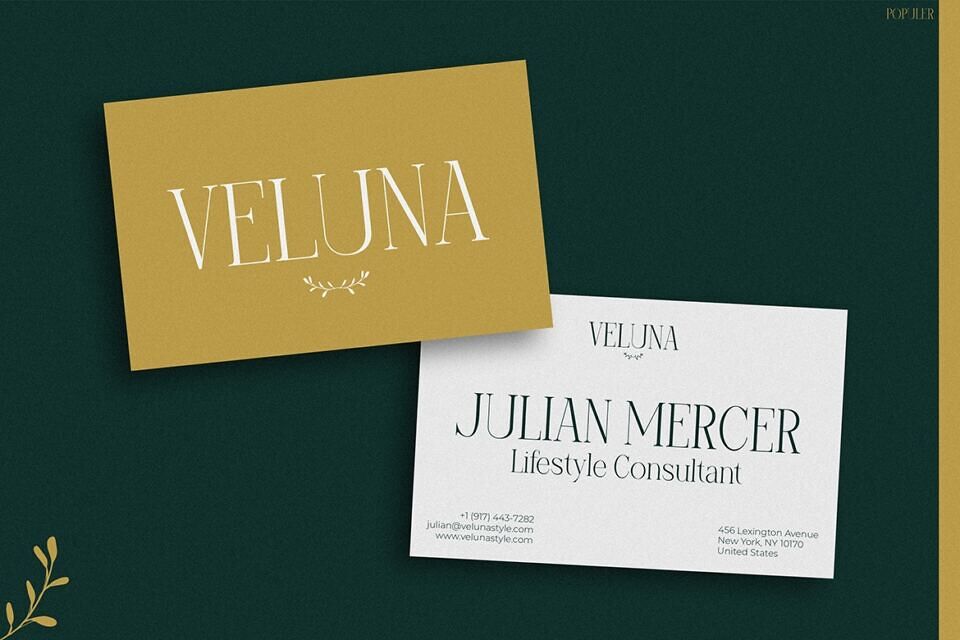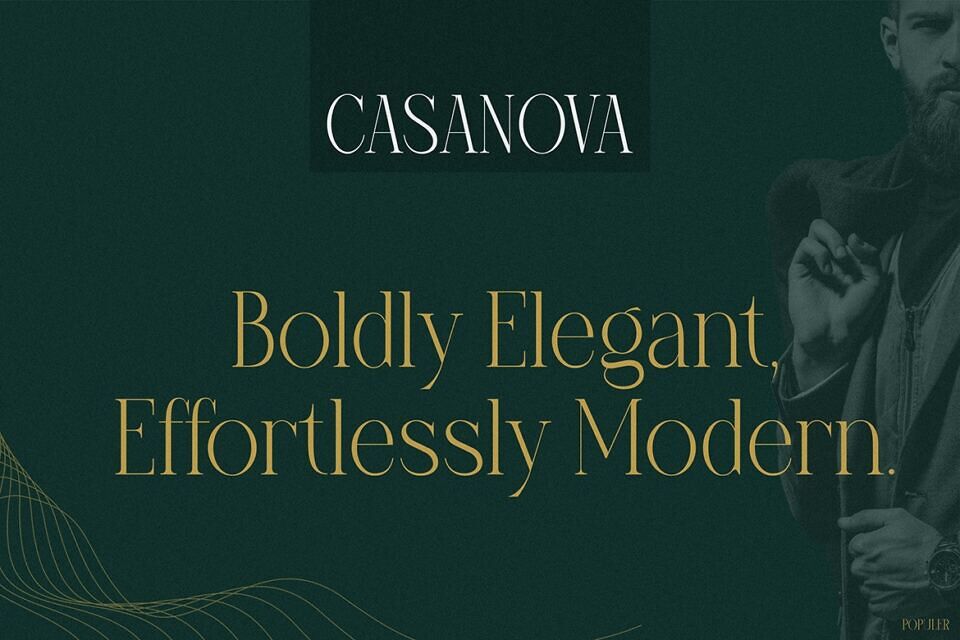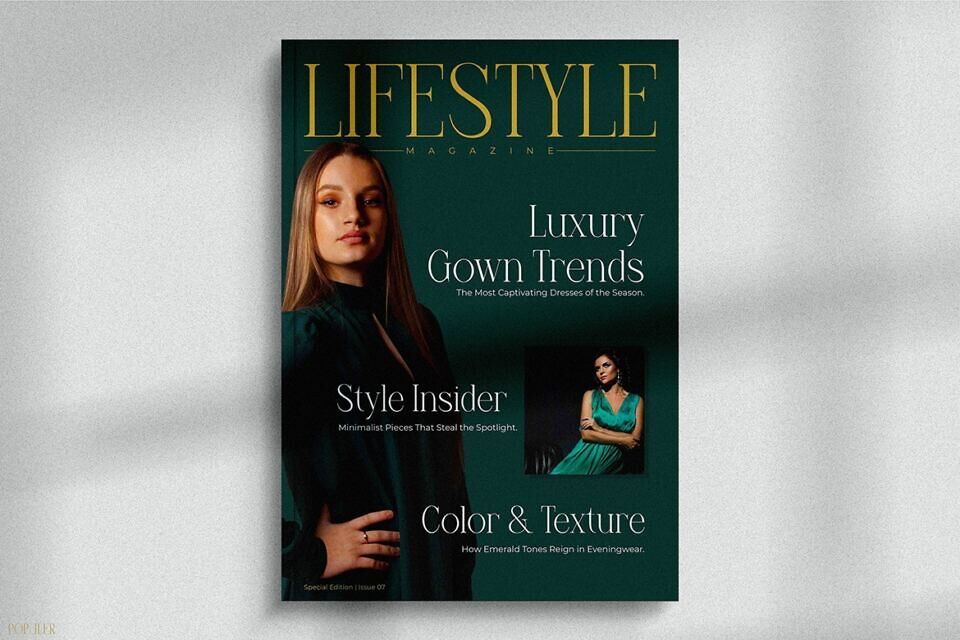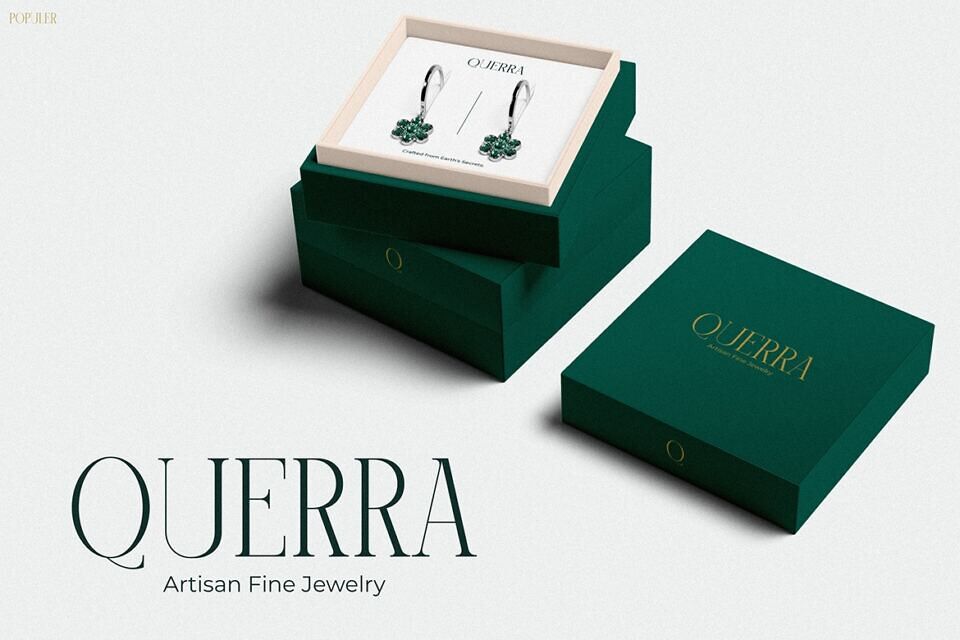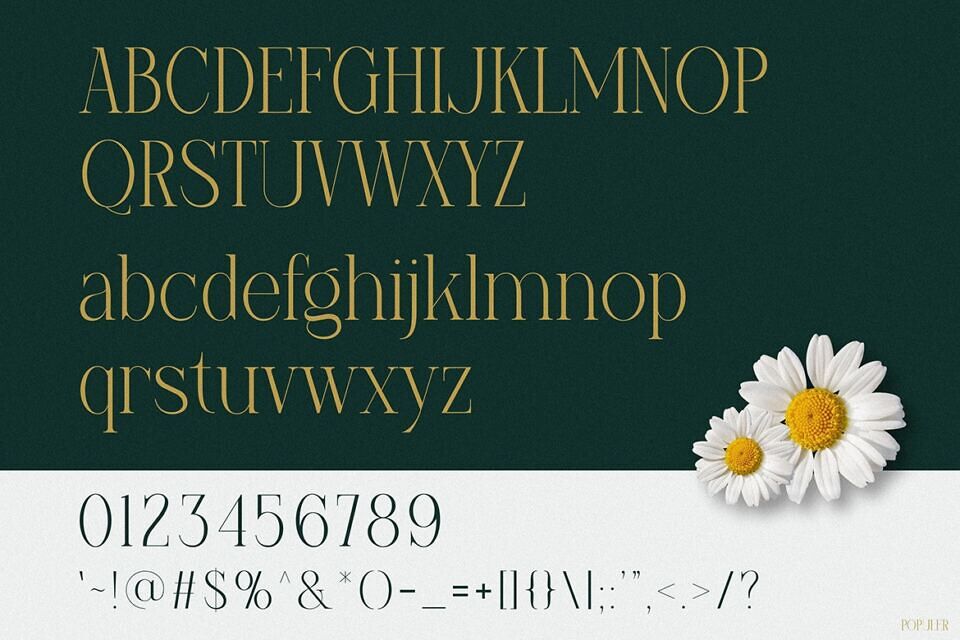
Populer is an elegant serif font designed to make a bold yet refined impression. With tall, confident letterforms and high-contrast strokes, it blends classic charm with a modern aesthetic—ideal for fashion, lifestyle, and luxury branding.
Its smooth curves and precise spacing ensure readability, making it perfect for Instagram posts, quotes, product packaging, and editorial layouts. Designers love its uppercase authority for logos and titles, while the lowercase letters offer balance for captions and subtext. Whether ybuildingou’re a premium brand or enhancing your visuals, Populer delivers a sophisticated, polished look that elevates every message.